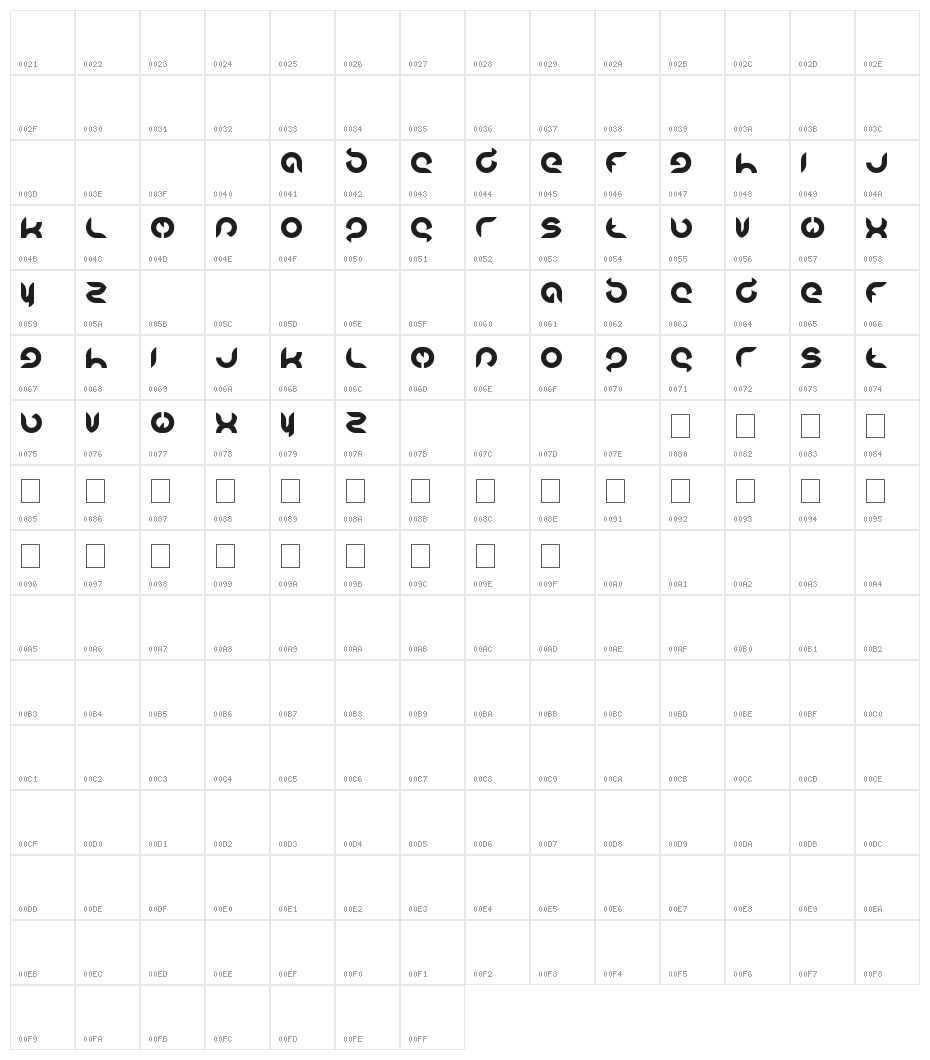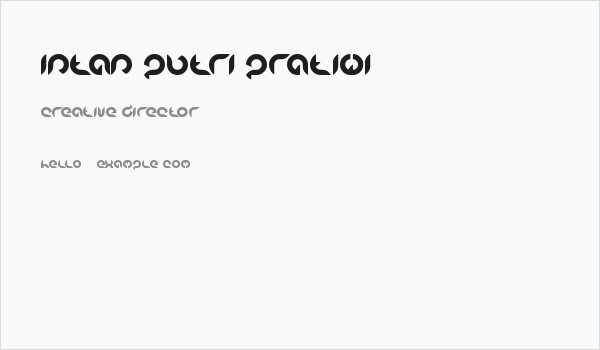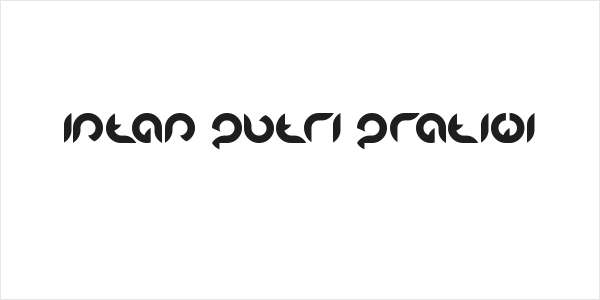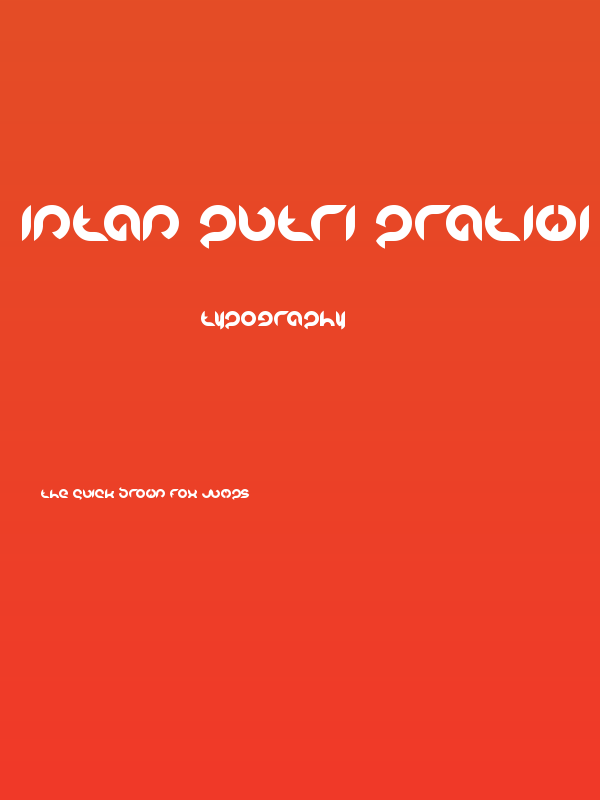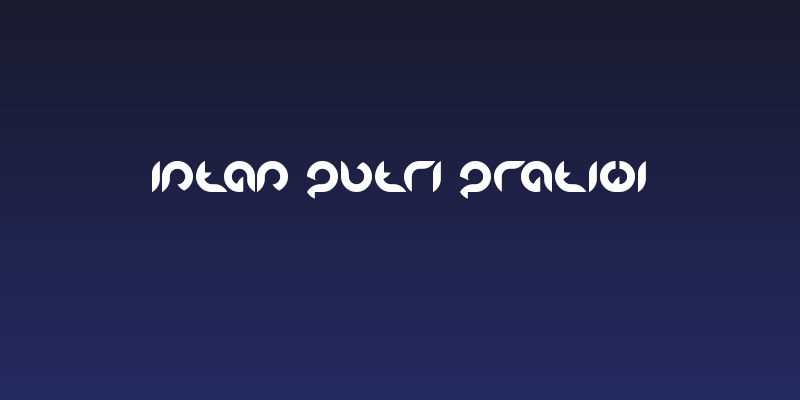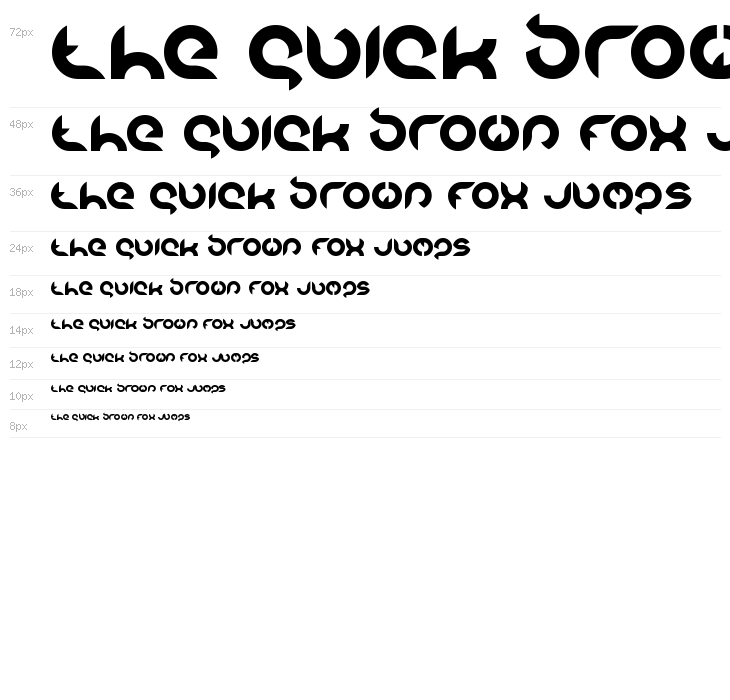
Intan Putri Pratiwi Font
Intan Putri Pratiwi Description
This font features a bold and futuristic design with a unique geometric style. Each character is crafted with sharp angles and curves, creating a sense of movement and modernity. The letters are uniform in height, contributing to a cohesive and structured appearance. The font's distinctiveness is highlighted by its symmetrical and mirrored elements, giving it a dynamic and eye-catching look. It is well-suited for projects that require a contemporary and innovative touch, making it ideal for branding, advertising, and digital media.
| Proposed Projects | Ideal for branding, advertising, digital media, and any project needing a modern, innovative touch. |